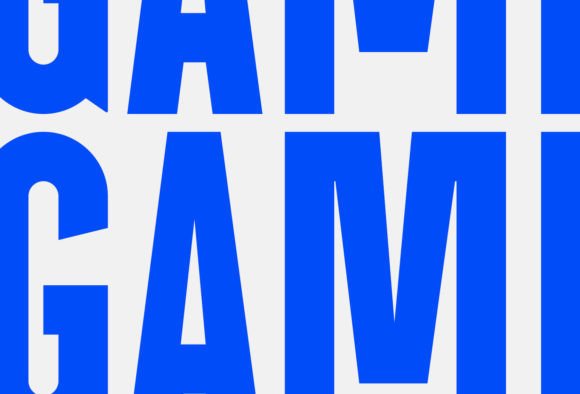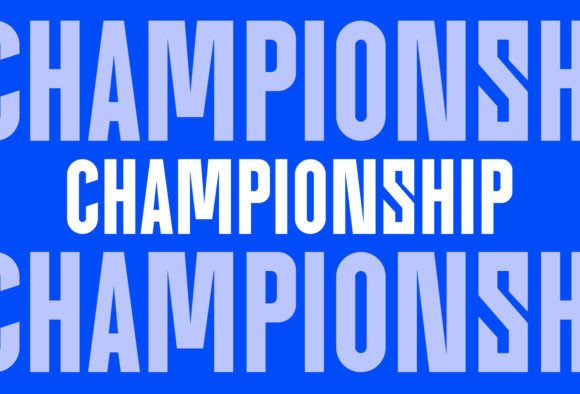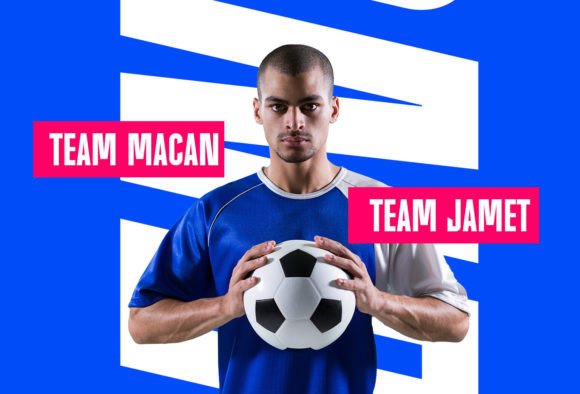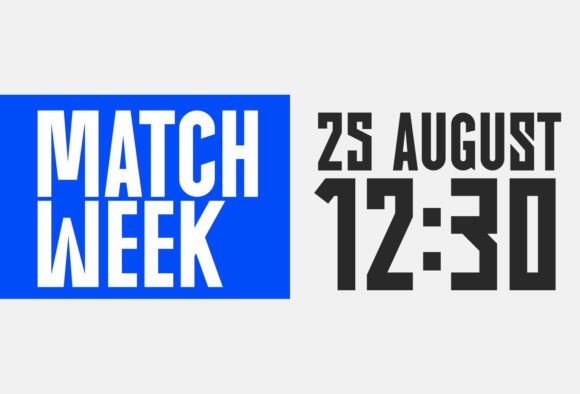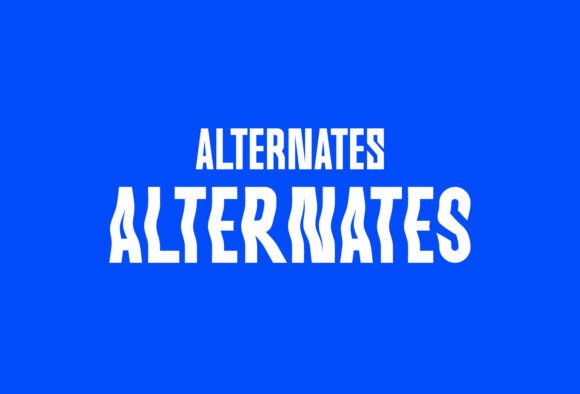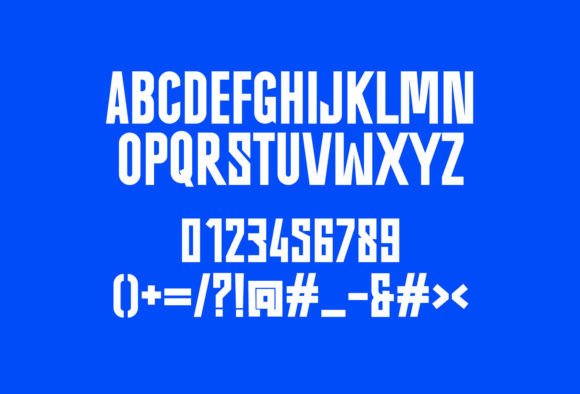
Unleash Your Design Potential with Dakdo Font: The Ultimate Choice for Sports and Esports Gaming
In the world of typography, fonts play a crucial role in conveying the tone and personality of a brand or design. For designers and crafters looking to make a bold statement, the Dakdo font is an exceptional choice. This visually striking typeface is specifically crafted to evoke a sense of strength and dynamism, making it particularly well-suited for the realms of sports and esports gaming.
Design Characteristics of Dakdo Font
The Dakdo font boasts sharp lines and prominent angles, which exude power and energy. Its rugged and edgy aesthetic is perfect for creating bold and eye-catching designs that demand attention. Whether you’re working on a logo, poster, or social media graphic, Dakdo font is sure to make your design stand out from the crowd.
What Makes Dakdo Font Special?
One of the key features that sets Dakdo font apart is its PUA (Private Use Area) encoding. This means that you can access all of the amazing glyphs and ligatures with ease, giving you a wide range of creative possibilities. With Dakdo font, you can add an extra layer of depth and visual interest to your designs, taking them to the next level.
Use Cases for Dakdo Font
So, where can you use Dakdo font to make an impact? The possibilities are endless, but here are a few ideas to get you started:
• Sports branding: Create a bold and dynamic logo for a sports team or athlete with Dakdo font.
• Esports gaming: Use Dakdo font to design eye-catching posters, social media graphics, or website headers for esports gaming events or teams.
• Outdoor and adventure: Dakdo font is also perfect for designs related to outdoor and adventure activities, such as hiking, rock climbing, or extreme sports.
Why Choose Dakdo Font?
With so many fonts available, why choose Dakdo font for your design projects? Here are just a few reasons:
• Unique and memorable: Dakdo font is a one-of-a-kind typeface that’s sure to make your designs stand out.
• Highly versatile: Dakdo font can be used for a wide range of design projects, from logos and posters to social media graphics and website headers.
• Easy to use: With PUA encoding, Dakdo font is easy to use and customize, even for designers without extensive typography experience.
Tips for Using Dakdo Font Effectively
To get the most out of Dakdo font, here are a few tips to keep in mind:
• Use it boldly: Dakdo font is designed to make a statement, so don’t be afraid to use it in bold and eye-catching ways.
• Experiment with colors: Dakdo font looks great in a variety of colors, so don’t be afraid to experiment and find the perfect hue for your design.
• Pair it wisely: Dakdo font can be paired with a range of other fonts, but be sure to choose fonts that complement its bold and dynamic aesthetic.
In conclusion, Dakdo font is an exceptional choice for designers and crafters looking to add a touch of strength and dynamism to their designs. With its sharp lines, prominent angles, and PUA encoding, Dakdo font is the perfect choice for sports and esports gaming designs. Whether you’re a seasoned designer or just starting out, Dakdo font is sure to help you unleash your creative potential and take your designs to the next level.